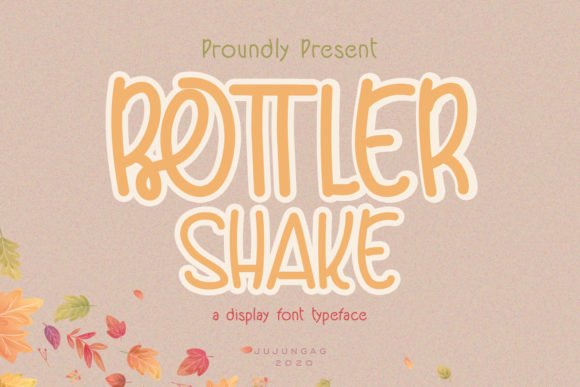
Bottler Shake Font Font – Free Download Introduction to Bottler Shake Font Font Fonts play a crucial role in design, and the Bottler Shake Font font is a typeface that brings both character and versatility…